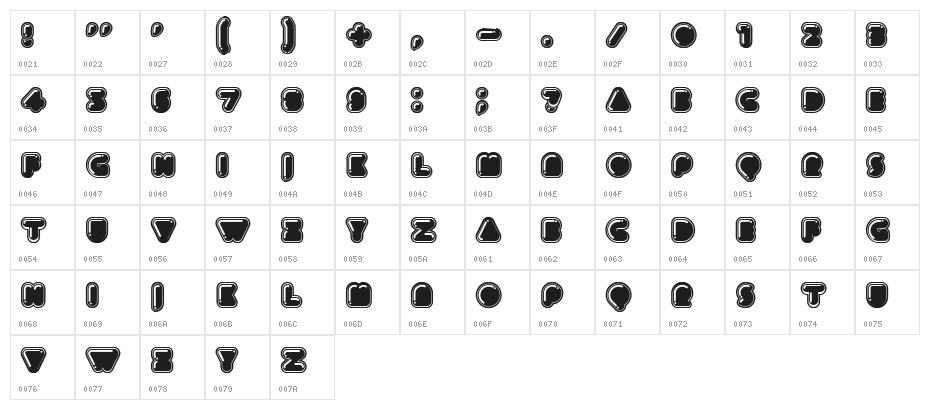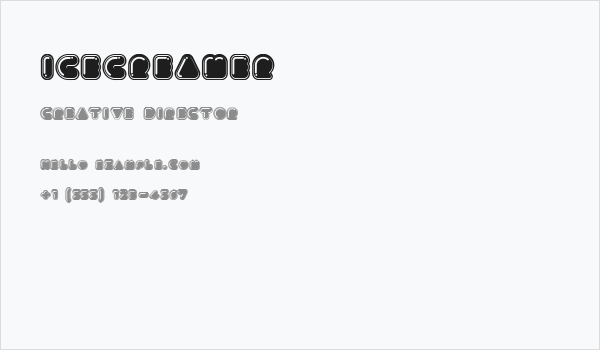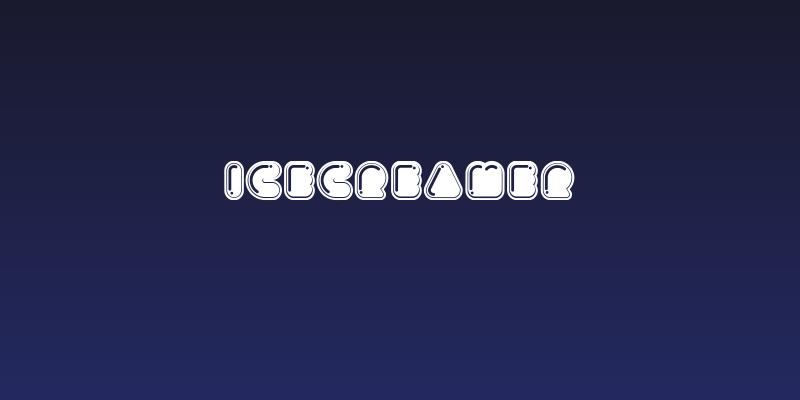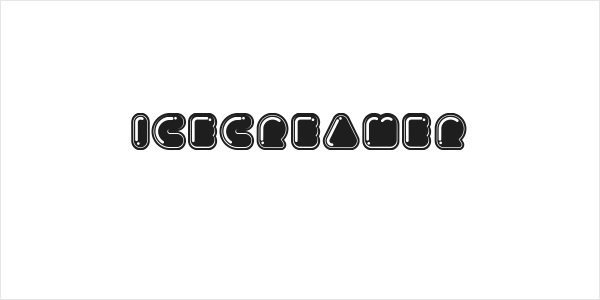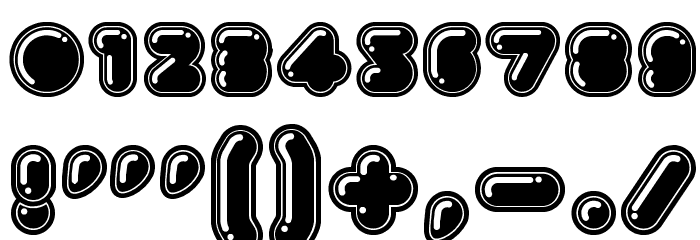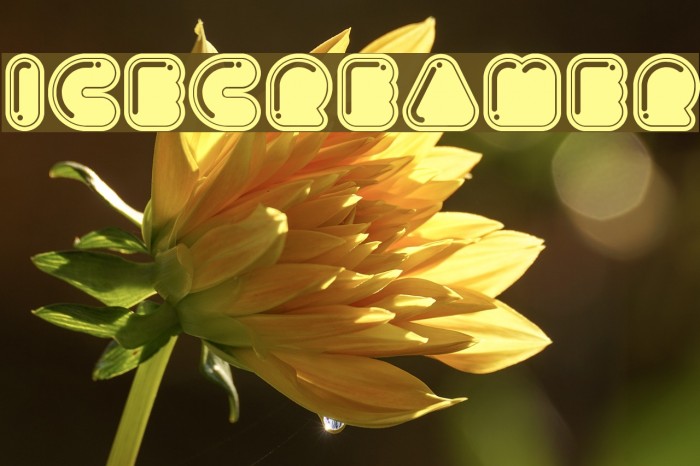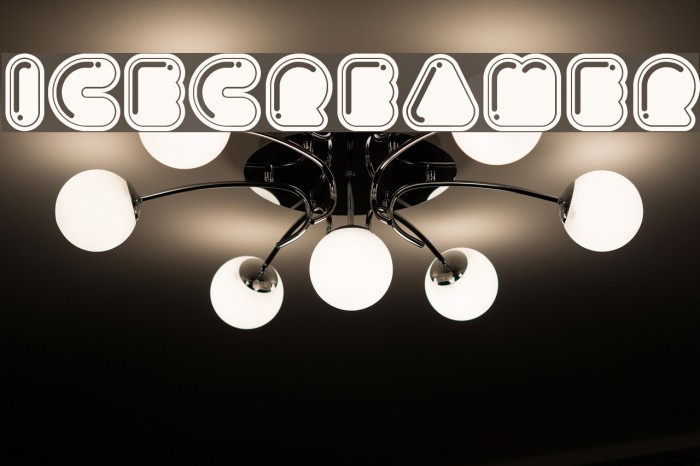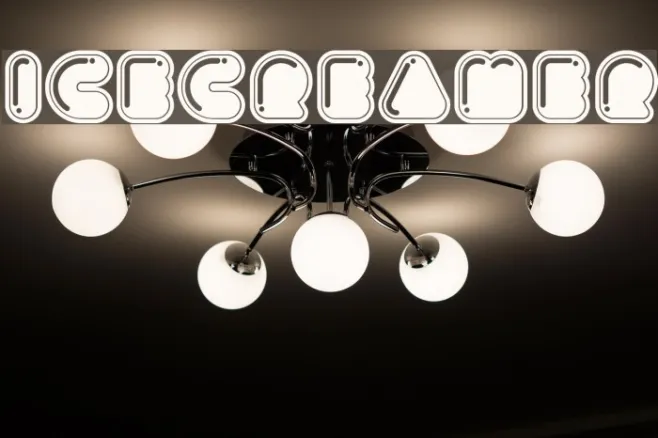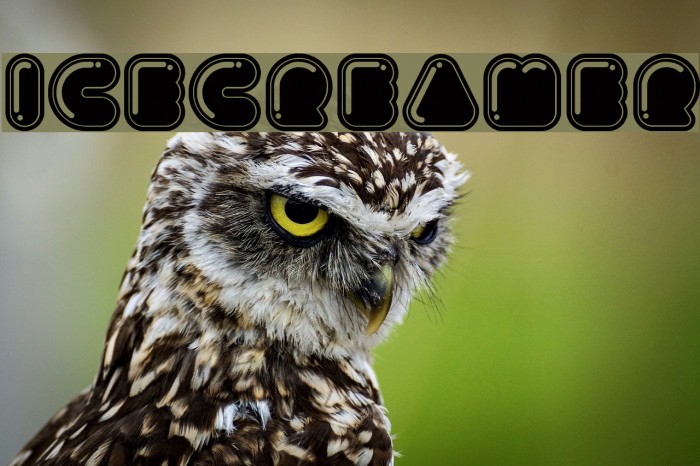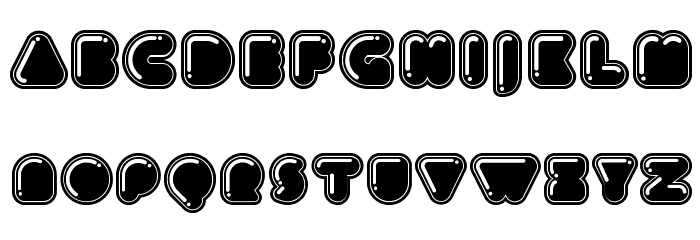
Icecreamer Font
Icecreamer Description
This playful and bold font features rounded, bubble-like characters with a glossy, three-dimensional appearance. Each letter and number is encased in a thick outline, giving it a distinct and eye-catching look. The font exudes a fun and whimsical vibe, making it ideal for projects that require a touch of creativity and lightheartedness. The characters are evenly spaced, ensuring readability while maintaining their unique style. The font's design is reminiscent of playful themes, perfect for capturing attention and adding a lively element to any design.
| Proposed Projects | Ideal for children's book covers, playful branding, party invitations, and creative posters. |